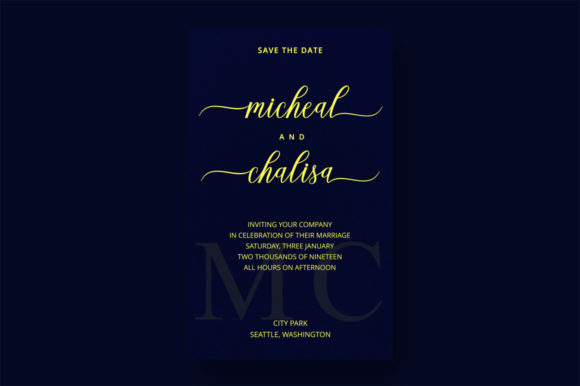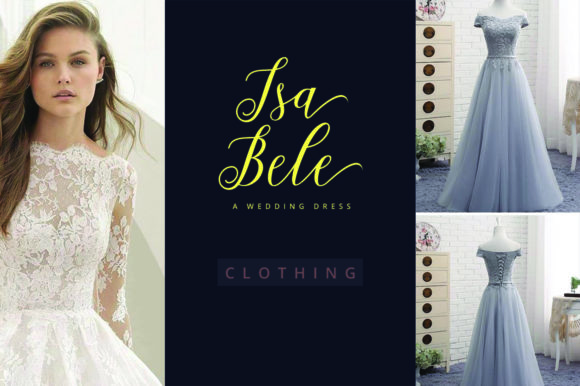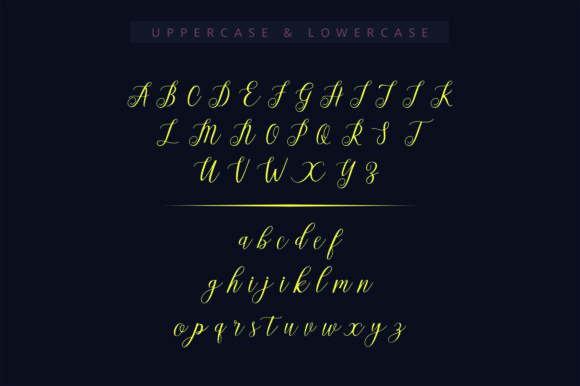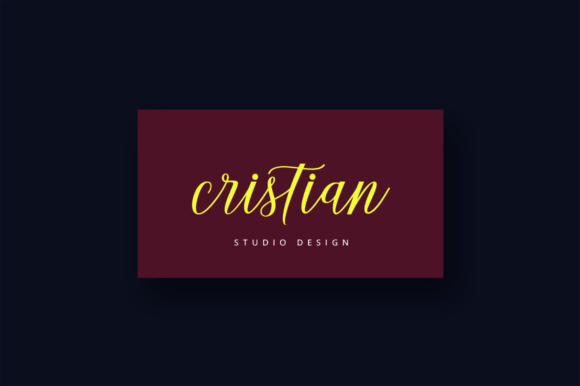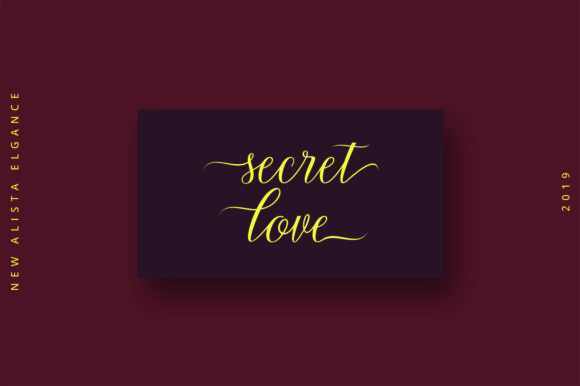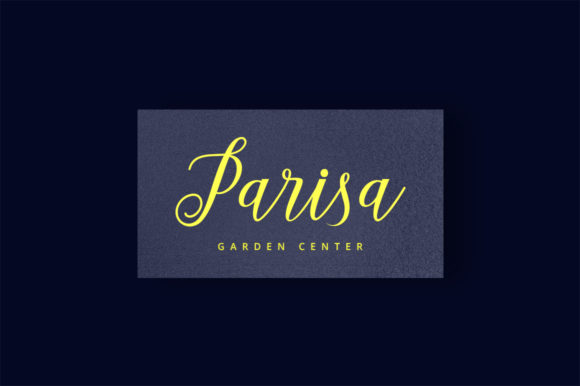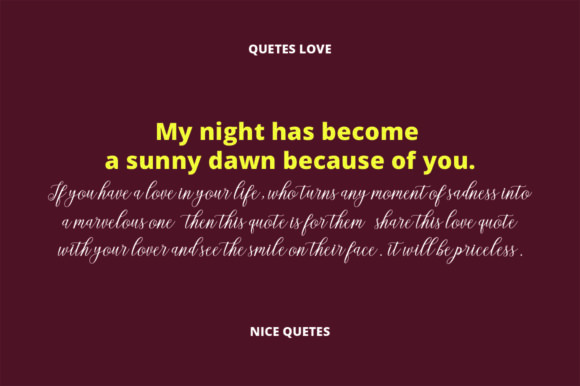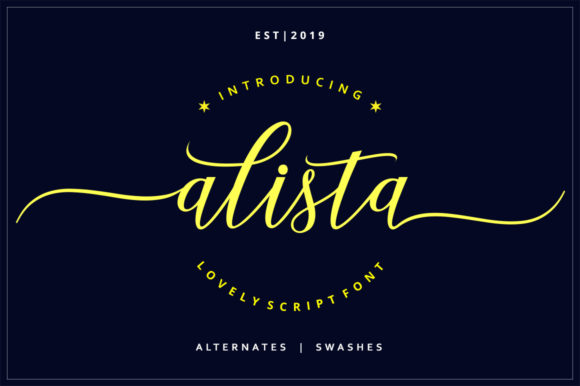
Alista Font
About Alista Font Font
The Alista is a modern calligraphy font. It has an elegant writing style that you can use for beautiful logos, website headers, fashion designs, wedding cards, and much more! Add this lovely freebie to your creations and take your designs to the next level!